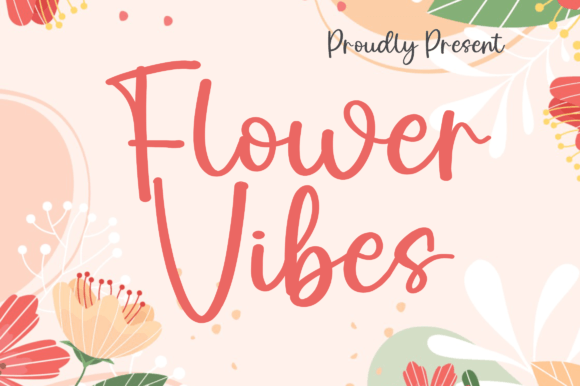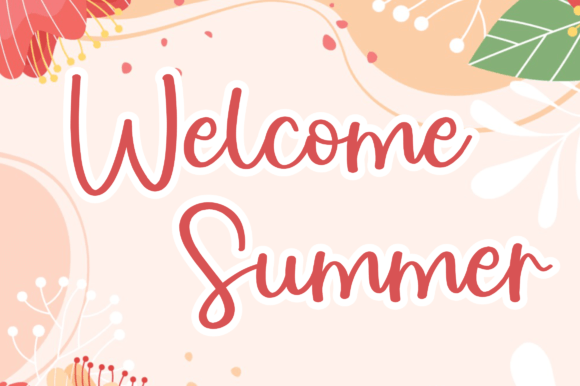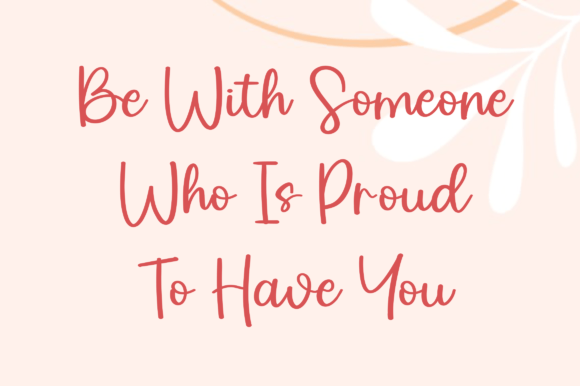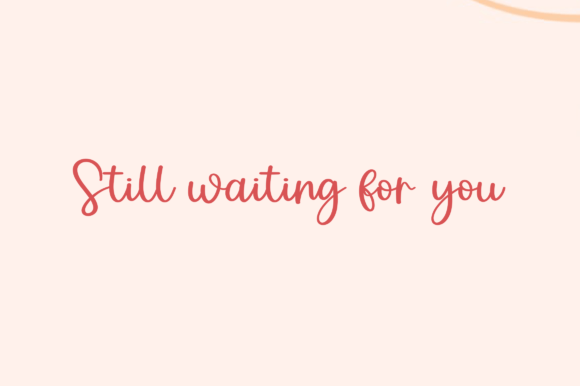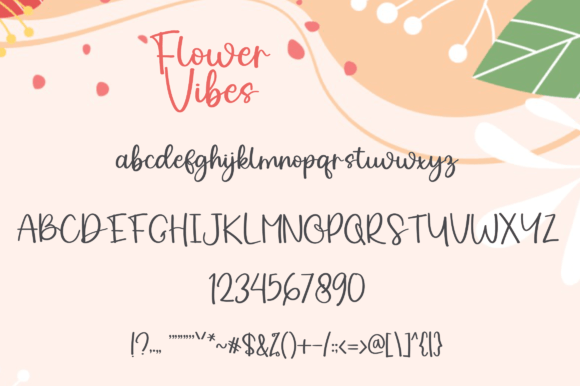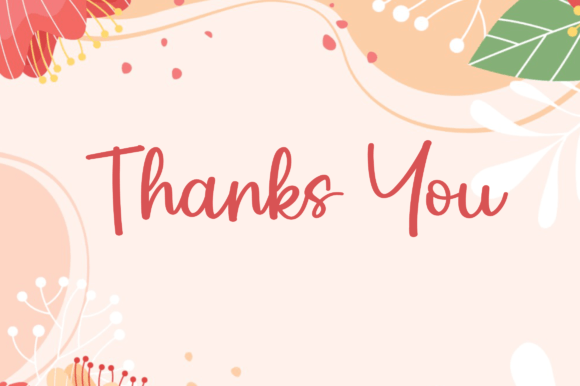
Flower Vibes Font
About Flower Vibes Font
“Flower Vibes” is a modern and chubby handwritten font that stands out with its charming character. This font is designed to impress and adds a touch of uniqueness to your creative projects. Whether you’re working on wedding designs, magazine covers, storybooks, invitations, or any other application, “Flower Vibes” promises to bring a delightful and distinctive vibe.
The modern and chubby style of “Flower Vibes” gives it a playful and inviting look. Its charming character adds a sense of personality to your text, making it suitable for a variety of design contexts. This font is crafted to capture attention and make a statement, ensuring that your designs stand out.
Imagine the impact of “Flower Vibes” on your wedding designs—it infuses the text with a playful charm, creating a memorable and delightful atmosphere. In magazine covers or storybooks, it becomes the key element that adds a touch of uniqueness and visual interest. Applied to invitations, it sets the tone for a joyful and inviting celebration.
Incorporate “Flower Vibes” into your design toolkit and discover how it elevates your creative projects. Let its modern and chubby handwritten style be the defining feature that leaves a lasting impression. Whether you’re designing for digital or print, “Flower Vibes” offers a versatile and expressive solution for your typographic needs.